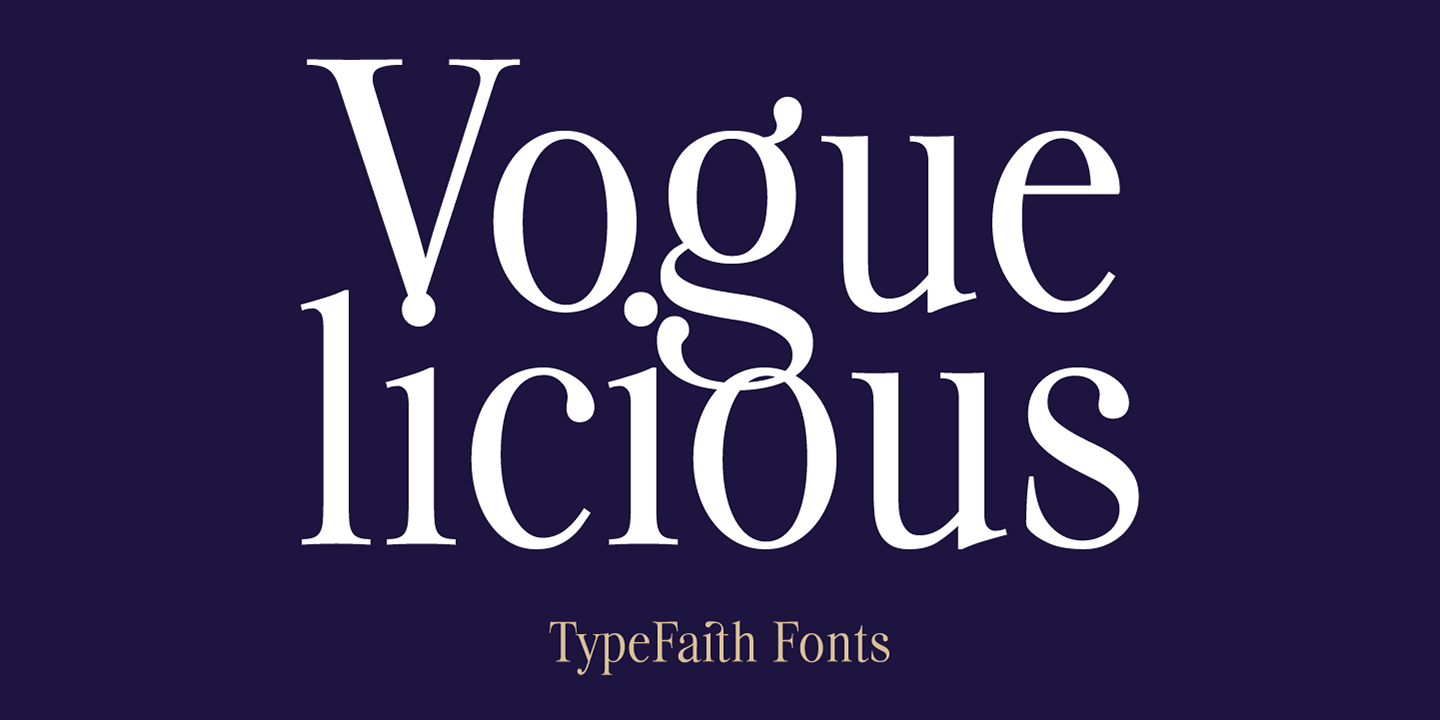
This glamorous typeface is perfect for fashion magazines, luxury brands, beauty salons, cosmetics packaging, high-end boutiques, jewelry stores, wedding invitations, fashion shows, lifestyle blogs, premium restaurants, spa centers, designer labels, elegant event planning, sophisticated advertising campaigns, and upscale retail branding. The font's chic design makes it ideal for projects that demand sophistication, elegance, and fashionable appeal.
Voguelicious Font is exciting because it captures the essence of haute couture and luxury lifestyle through its sophisticated letterforms and refined character structure. The font's elegant curves and stylish proportions create an atmosphere of exclusivity and premium quality, making it perfect for brands that want to convey sophistication, glamour, and irresistible style. Its fashionable personality ensures memorable brand recognition while maintaining excellent legibility across all media.
The Voguelicious Font family includes multiple elegant variations: Thin Chic, Light Elegance, Regular Style, Medium Glamour, Bold Fashion, and Black Luxury weights, each available in standard and italic versions. Special couture editions feature decorative swashes, stylistic alternates, and ornamental ligatures that enhance the font's high-fashion appeal, providing designers with sophisticated tools for creating luxurious brand experiences.
Elevate your design sophistication with Voguelicious Font Free Download – a typeface that embodies luxury, style, and irresistible elegance. Whether you're creating fashion branding, beauty campaigns, or luxury marketing materials, this font delivers the glamorous presence and sophisticated charm your projects need while ensuring exceptional performance and timeless appeal across all premium applications and fashion-forward communications.